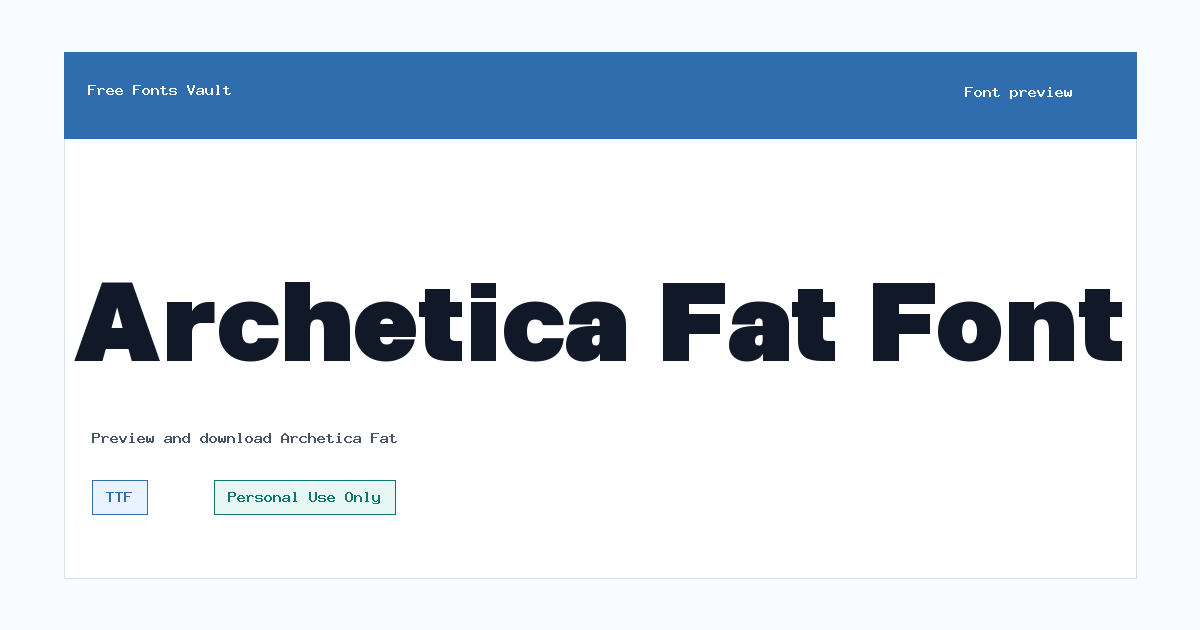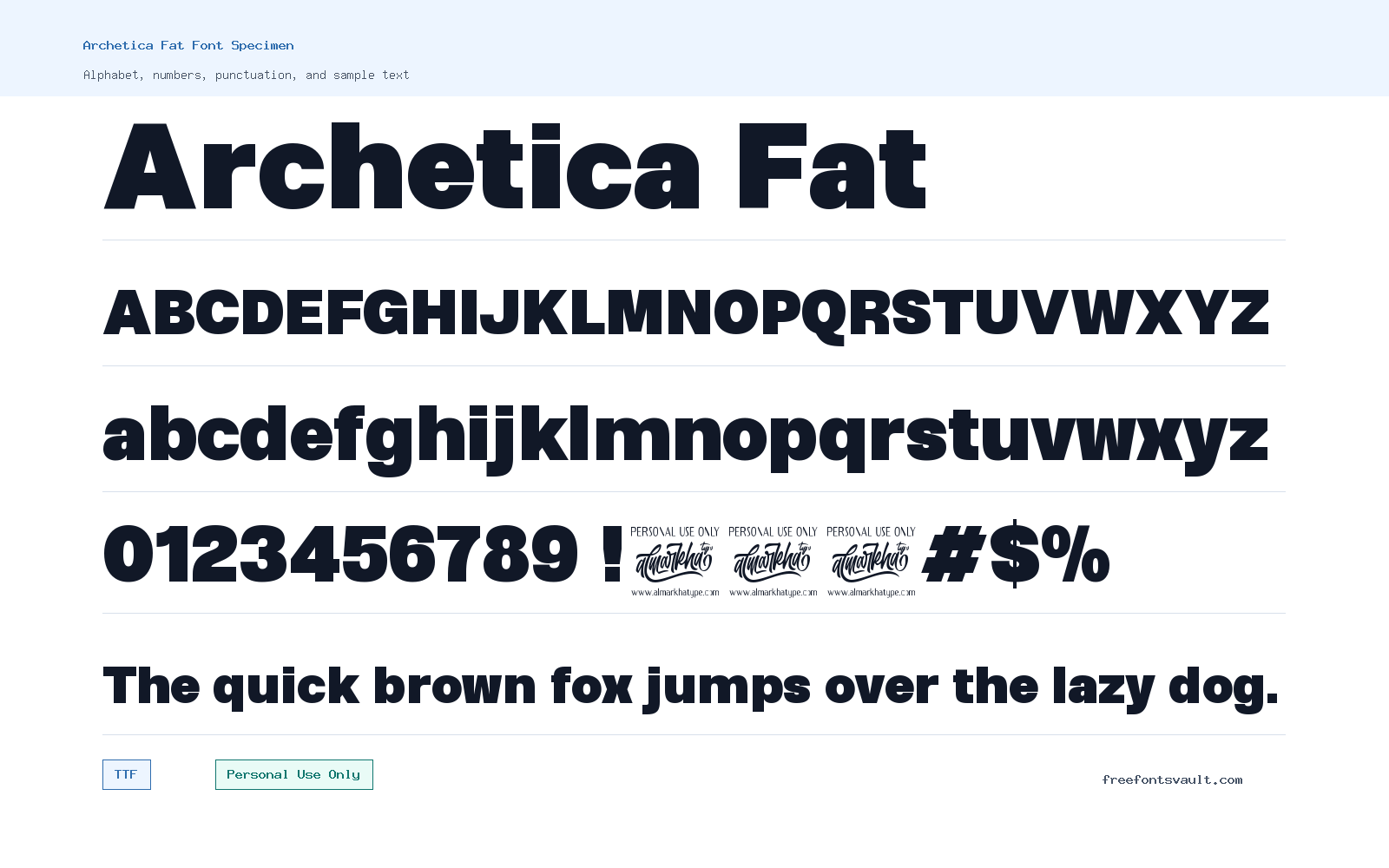
Archetica Fat
Archetica Fat font preview showing the family name
Archetica Fat font specimen showing alphabet, numbers, and sample text
Archetica Fat is a bold sans serif font from the Archetica family, offered in TTF and OTF formats for personal-use projects. Its heavy build makes it a strong choice when you need short text to feel clear, solid, and easy to notice.
Archetica Fat works best as a display font rather than a long-reading text face. The “Fat” style points to a thick, high-impact look, so it is most useful for words that need weight: poster headlines, logo drafts, event titles, packaging mockups, social graphics, stickers, badges, and large web hero text. Because the design is a sans serif, it can feel cleaner and more direct than decorative or script fonts, while the heavier shape gives it a stronger presence on the page.
• Bold sans serif display style suited to short, high-visibility text
• Best used at larger sizes where the heavy letterforms have enough space
• Poster headlines and event titles
• Logo concepts and brand-name mockups
• Website hero text and landing page headlines
• Social media graphics, thumbnails, and quote cards
• Packaging drafts, labels, badges, and stickers
• Short display words where a strong sans serif voice is needed
For the best result, keep Archetica Fat for the main word or headline and let a simpler font handle the supporting text. Give it generous spacing, avoid very long lines, and test the exact phrase you plan to use. In logo work, check the font at small sizes as well as large sizes, because very heavy letters can lose detail when reduced. In web mockups, use it for headings or banners rather than paragraphs. If your design needs a more refined hierarchy, combine it with a regular or light sans serif so the page has contrast and breathing room.
What kind of font is Archetica Fat?
Archetica Fat is a bold sans serif display font. It is better for headlines, logos, posters, and short text than for long paragraphs.
What should I pair with Archetica Fat?
Pair it with a clean, lighter sans serif for body text, captions, menus, or descriptions. This keeps Archetica Fat focused on the headline while the rest of the design stays readable.